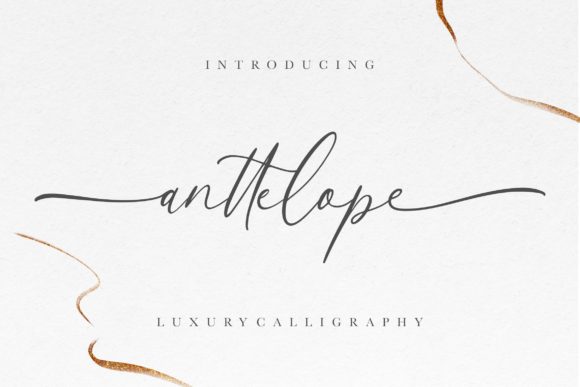
Unveil the Enchantment: Anttelope Font - The Epitome of Modern Logo Design
In a world teeming with countless fonts, Anttelope emerges as a radiant beacon of elegance, exuding an aura of sophistication that captivates the senses. This extraordinary script font envisions a harmonious blend of past and future, combining the classic allure of calligraphy with a refreshingly modern aesthetic. Its name, inspired by the graceful antelope, embodies the font's inherent grace and fluidity.
Anttelope is not merely a font; it's an invitation to embark on a creative odyssey, transforming your designs into masterpieces that resonate with beauty and timeless appeal. Whether you're a seasoned graphic designer or a budding entrepreneur seeking a distinctive voice for your brand, Anttelope awaits you as your trusted companion.
Immerse yourself in the captivating world of Anttelope, where your imagination roams free and your designs take flight. With its clean, thin, and smooth vibe, this font lends an air of effortless elegance to every project it graces. Behold the allure of handwritten characters, each meticulously crafted to evoke a sense of authenticity and charm. Anttelope's delicate strokes dance across the page like whispers of a forgotten era, carrying with them a timeless allure that transcends trends.
Unleash the boundless potential of Anttelope and watch as your creative visions materialize into stunning logos, enchanting invitations, heartfelt greeting cards, and captivating website designs. From the classic elegance of wedding stationery to the edgy appeal of streetwear graphics, Anttelope adapts seamlessly to any style or genre, adding a touch of refinement and individuality.
Indulge in the creative freedom that Anttelope offers, allowing your imagination to flourish and your ideas to take shape. This versatile font empowers you to craft designs that speak volumes, conveying messages of love, joy, and sophistication with every stroke. Its inherent flexibility makes it a perfect choice for a wide range of projects, ensuring that your creative expression knows no bounds.
With Anttelope as your creative ally, you'll discover a new level of design excellence, leaving a lasting impression on your audience. Prepare to be captivated by the endless possibilities that await you as you embrace the beauty and elegance of Anttelope, the font destined to transform your designs into timeless works of art.